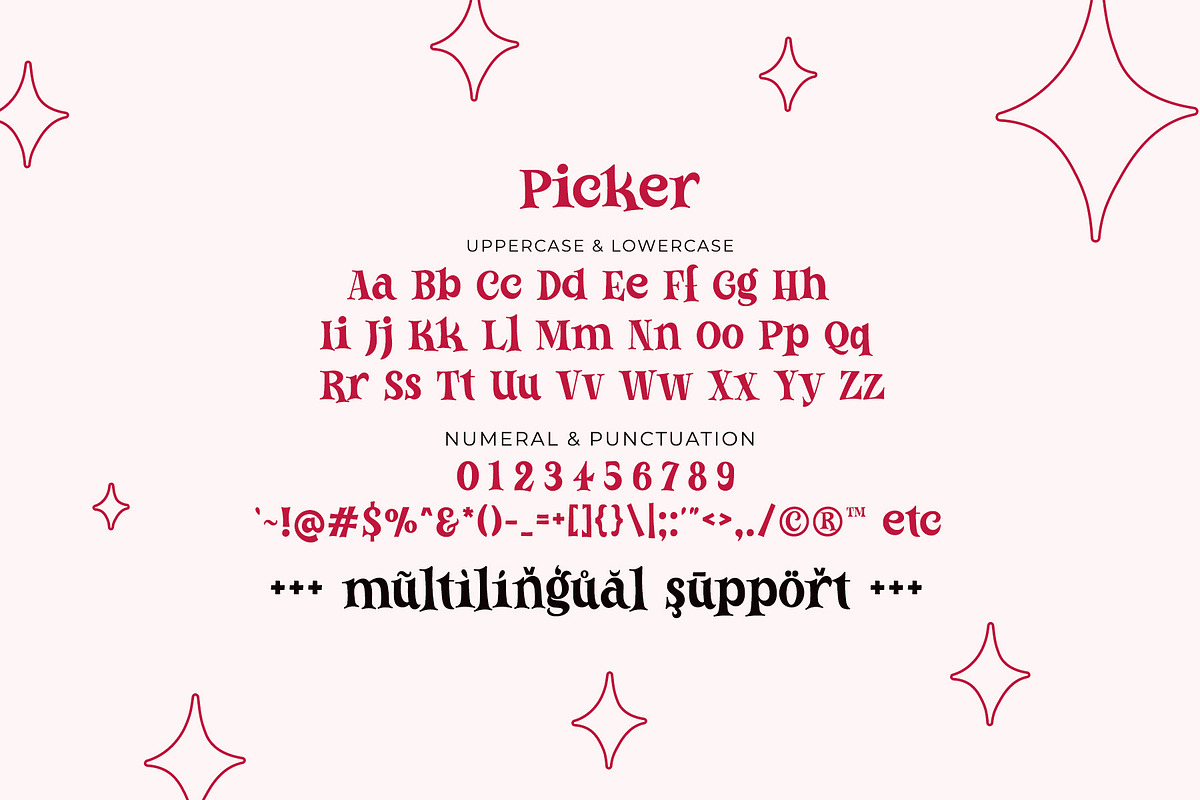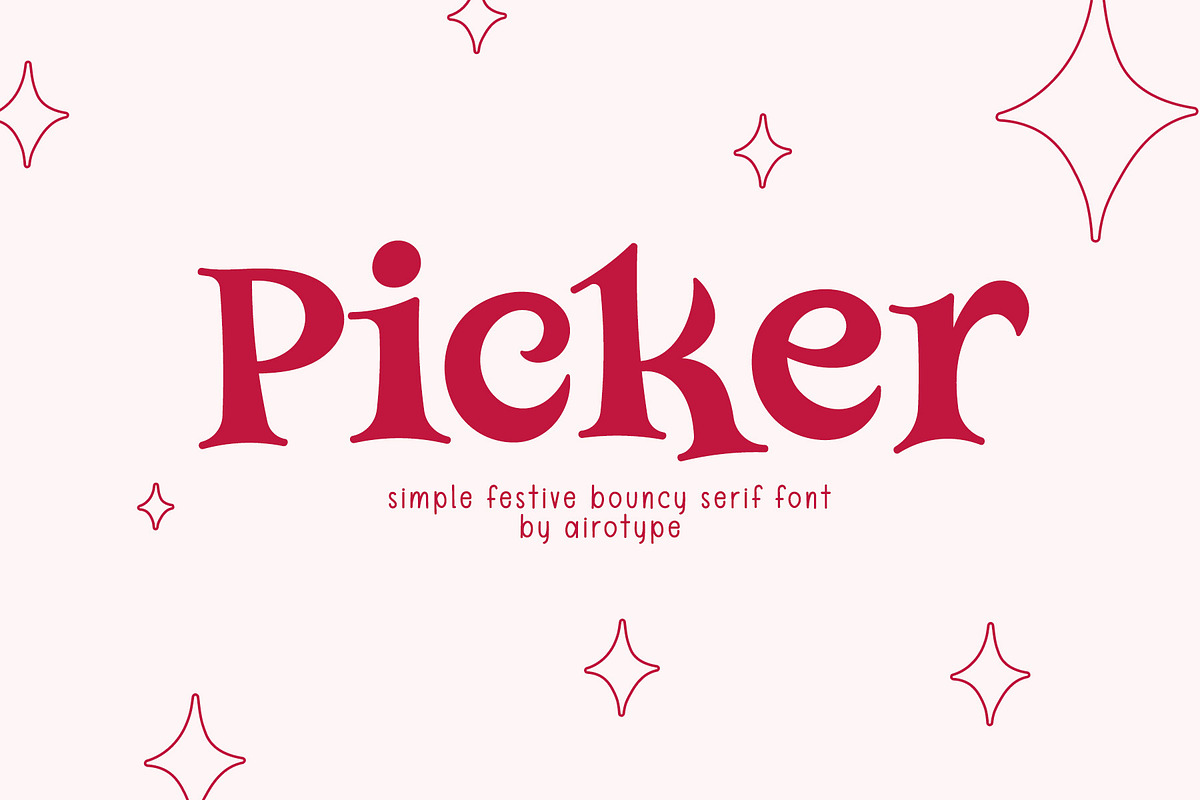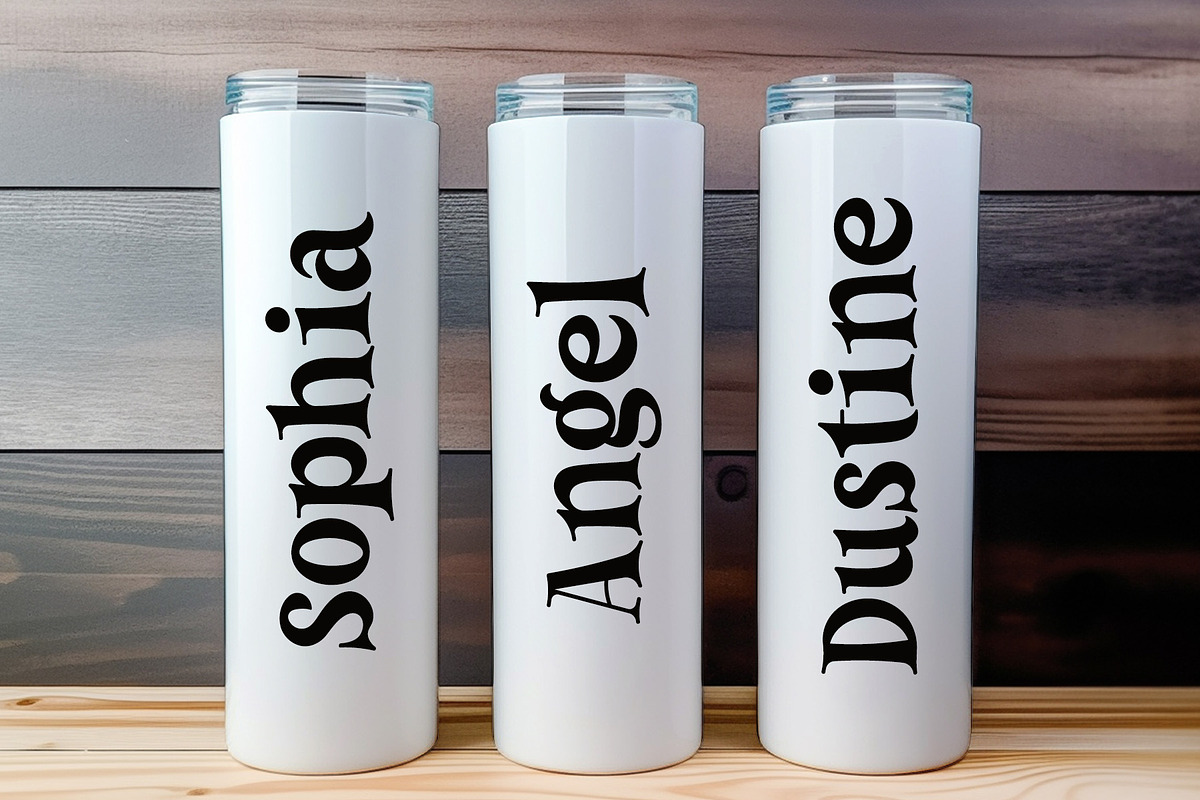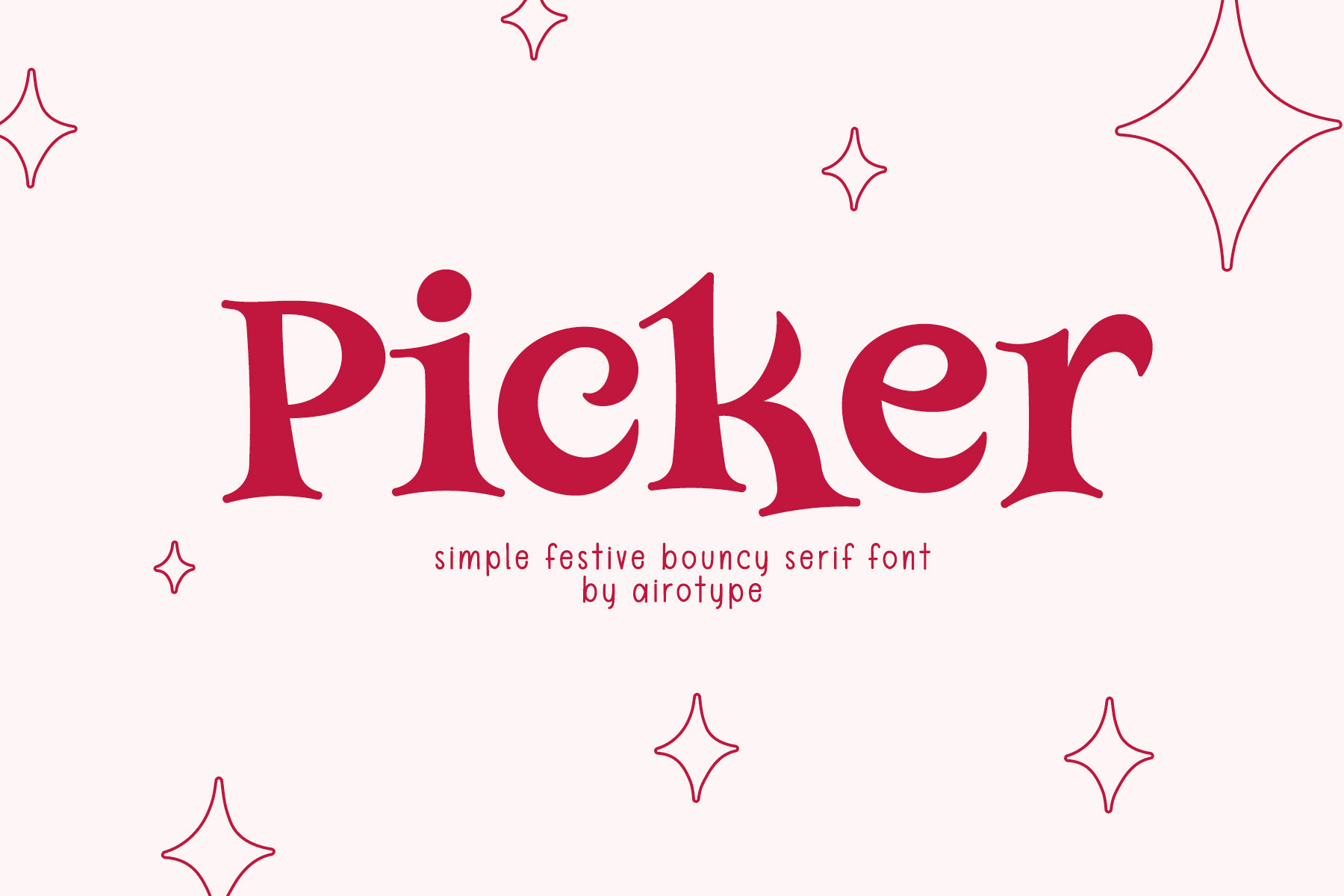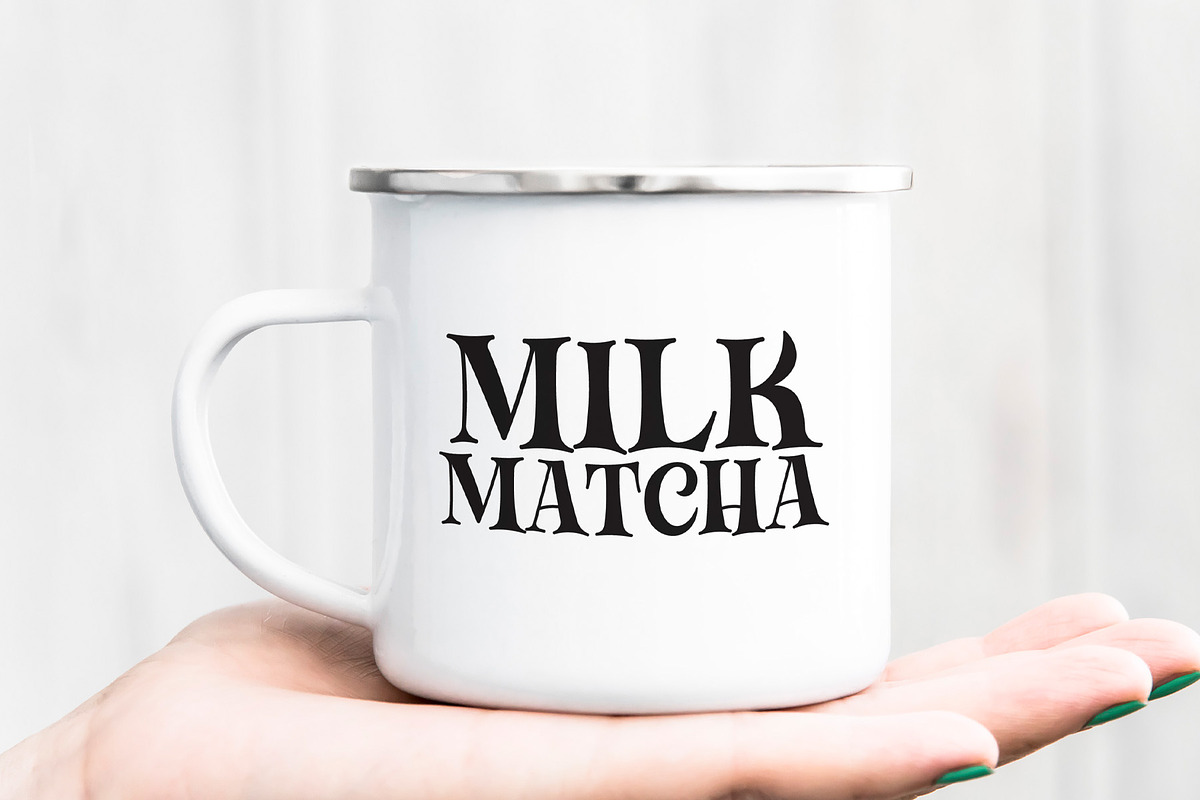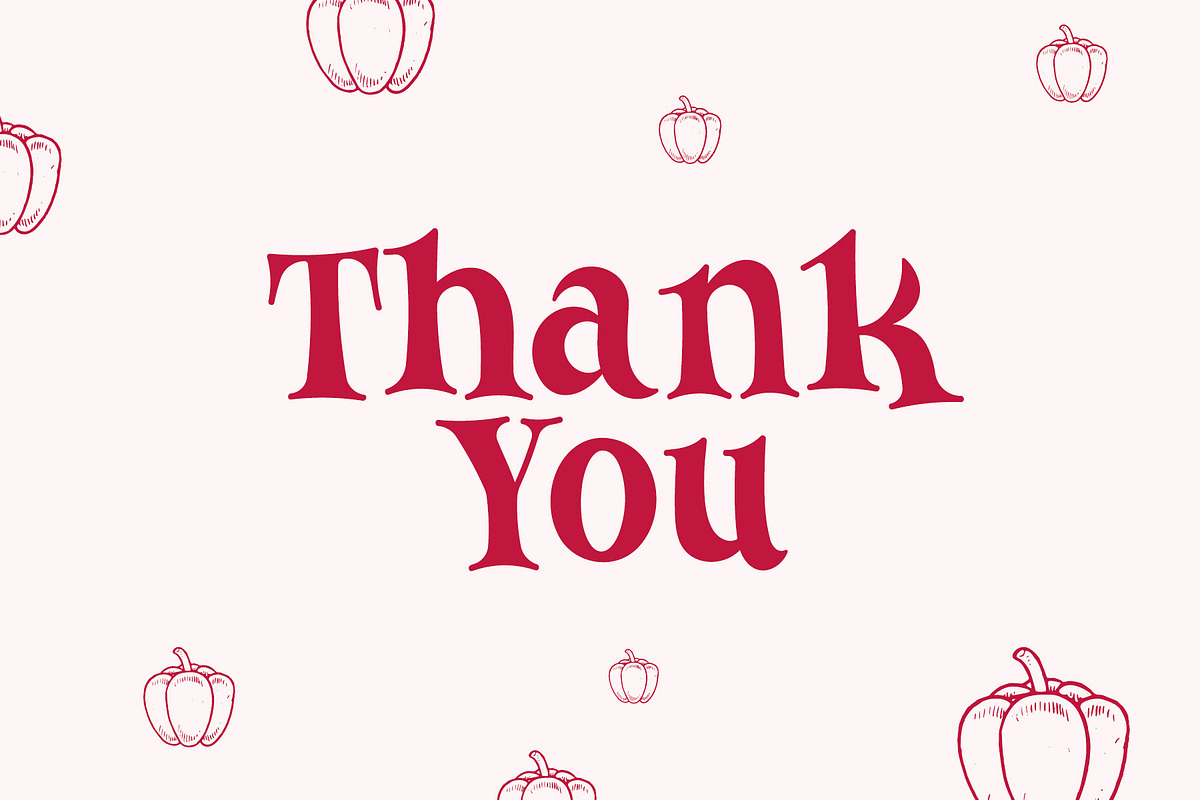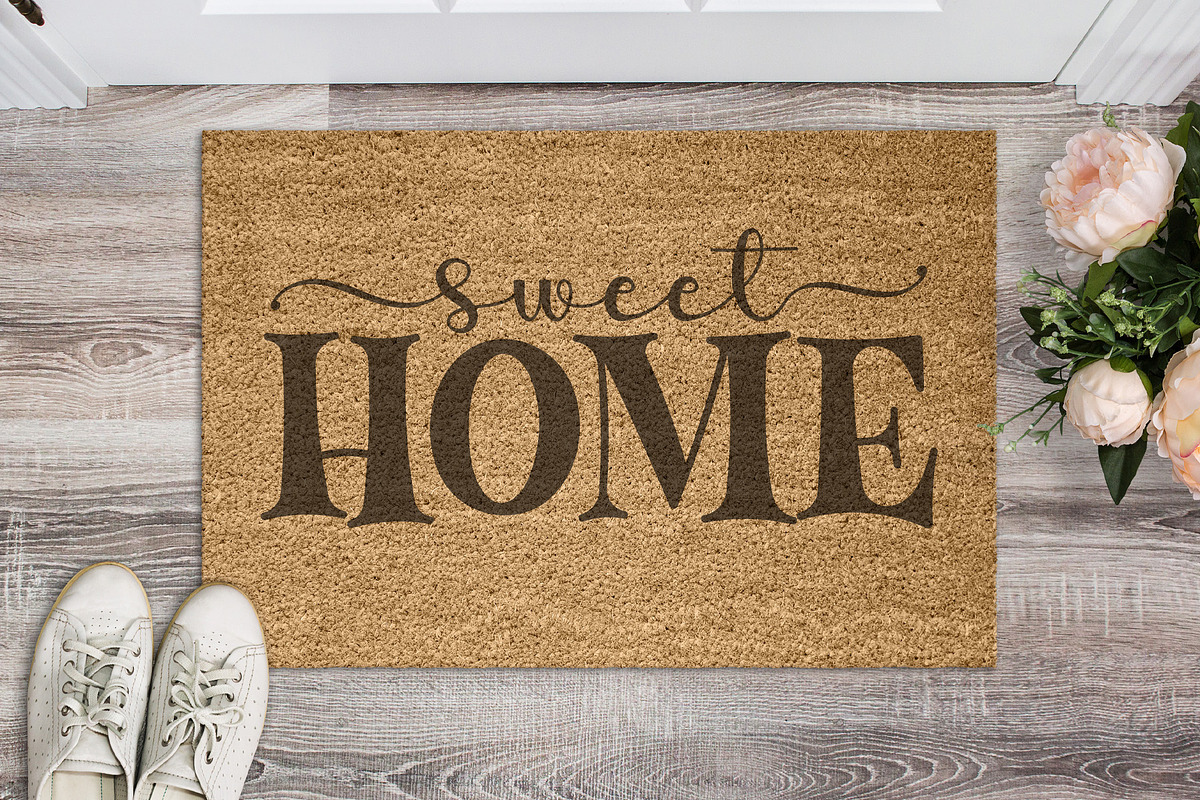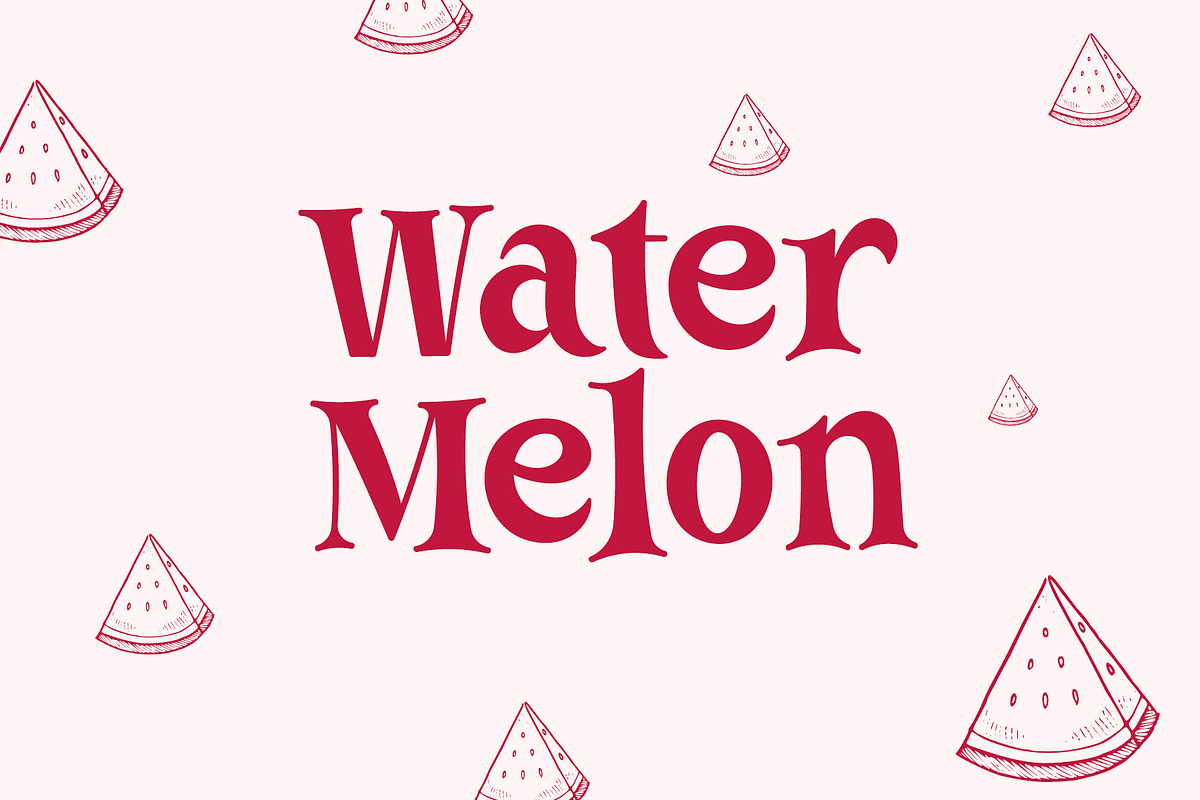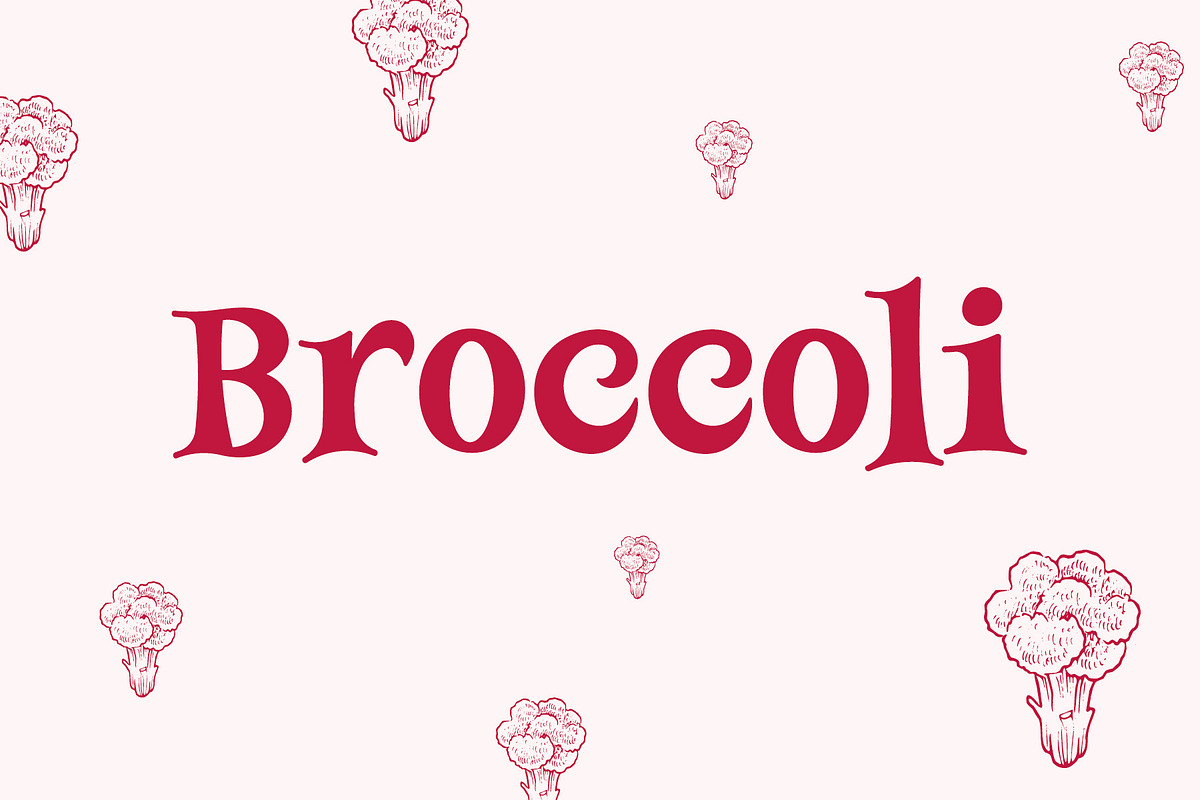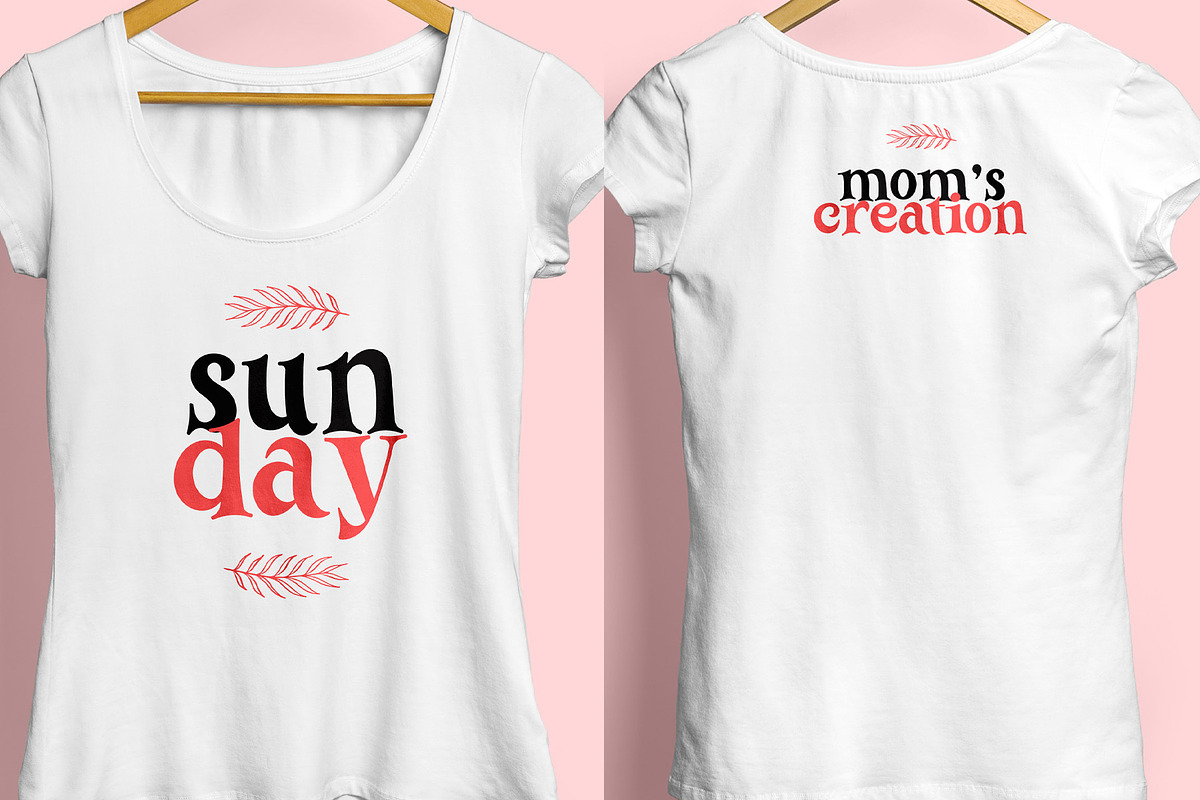
Picker - Festive and Cute Serif Font
Picker is cute and fun serif font. This font radiates energetic and festive vibes.
Picker is suitable font for wide ranges of design with cute theme, such as t-shirt, digital planner, crafting, sticker, quotes, tumbler, sublimation, and many more.
- Lowercase and Uppercase
- Most Multilingual Accent